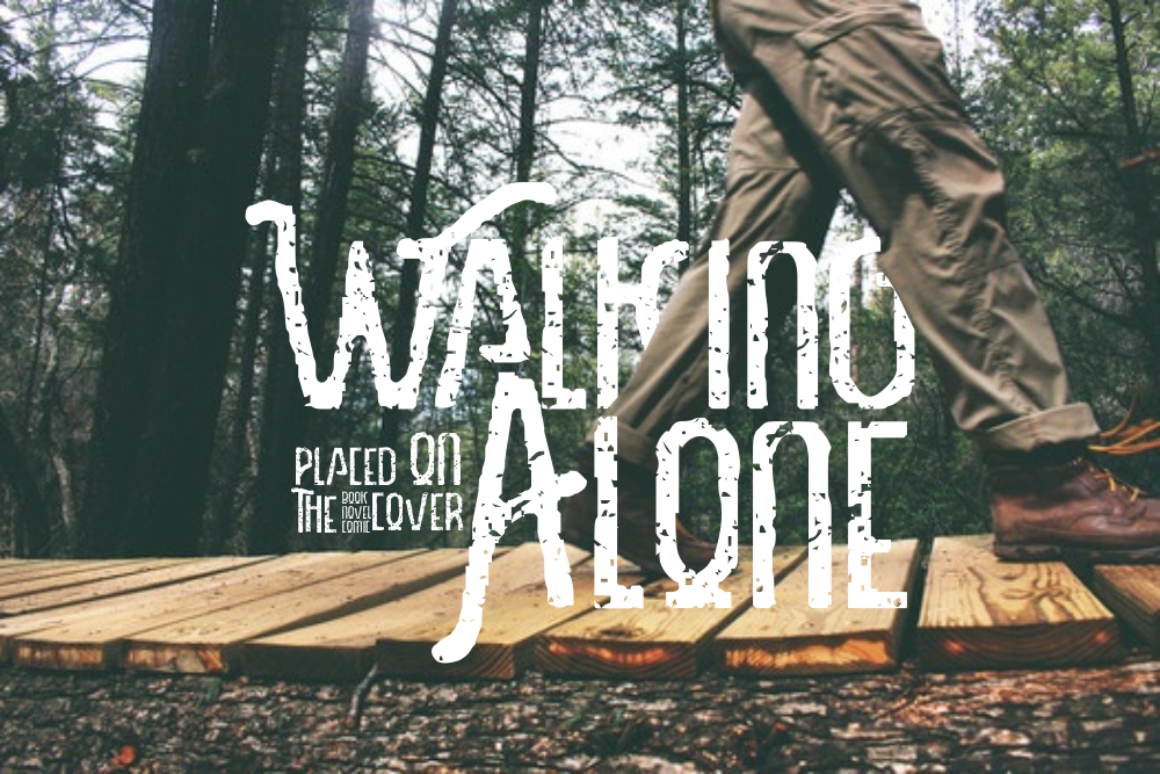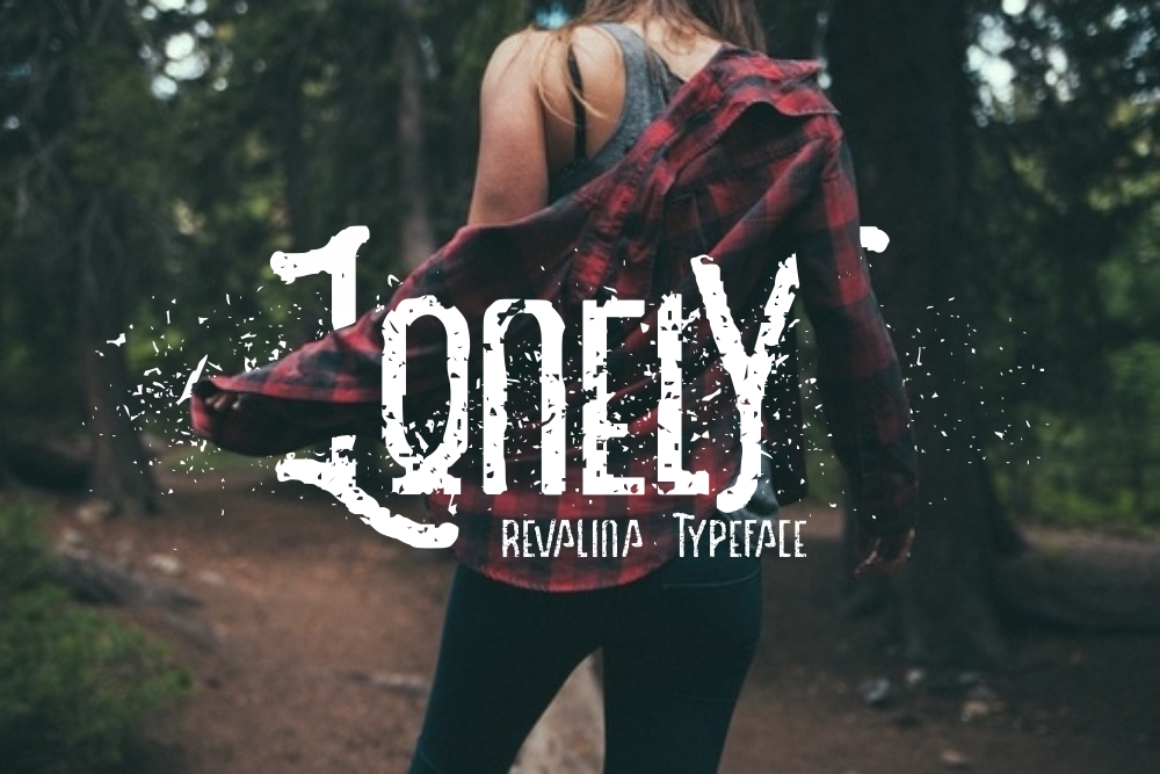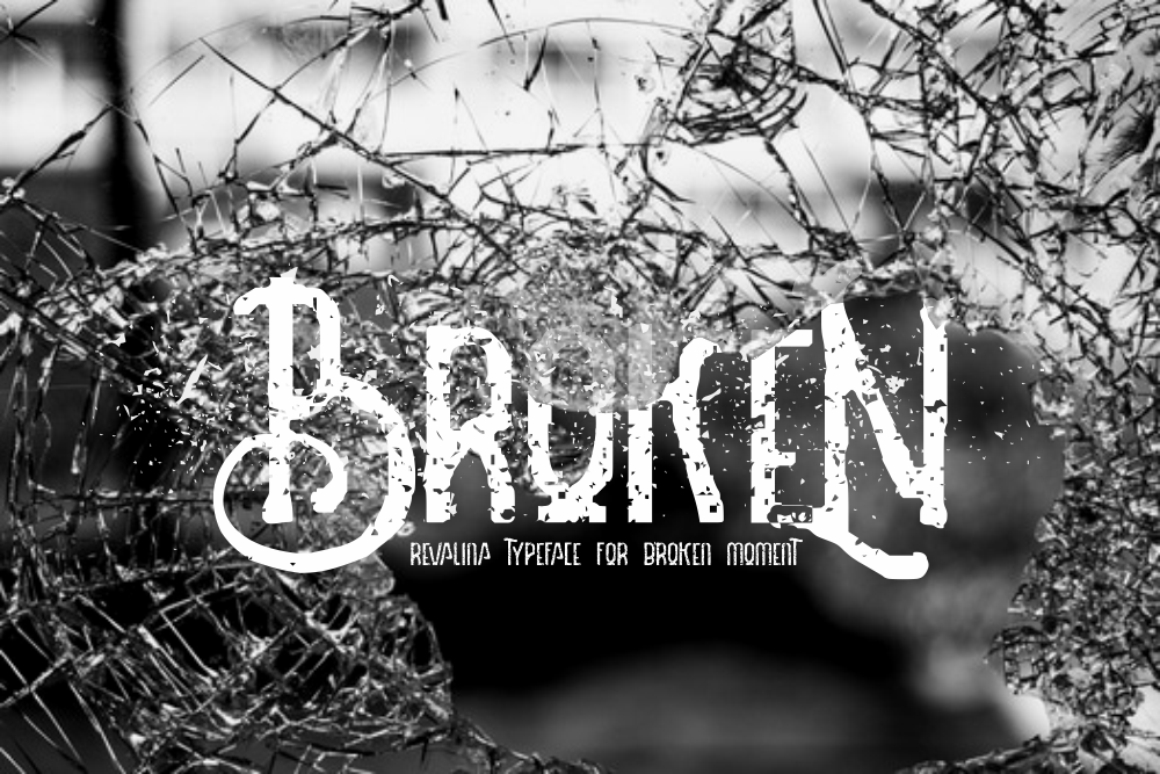
Introduction to Revalina Font
Revalina is a vintage display type.
An expressive font suitable for many types of projects .
Key Features of Revalina Font
Why Choose Revalina Font?